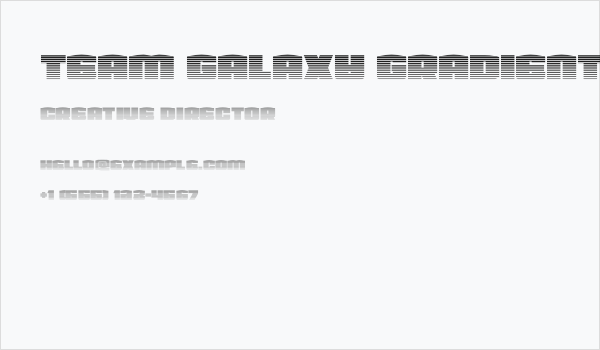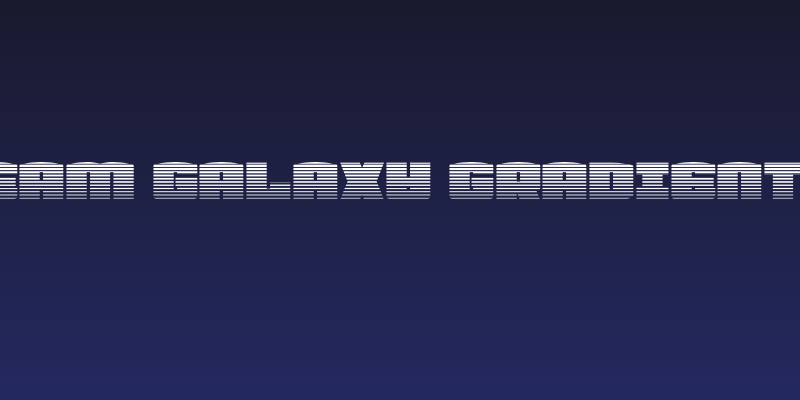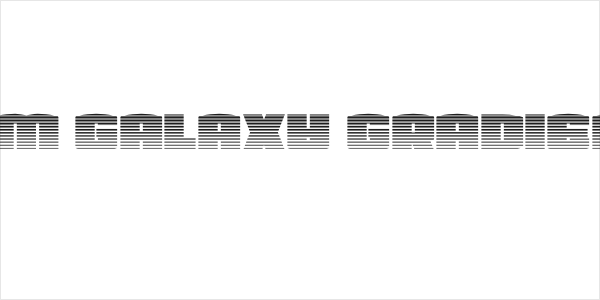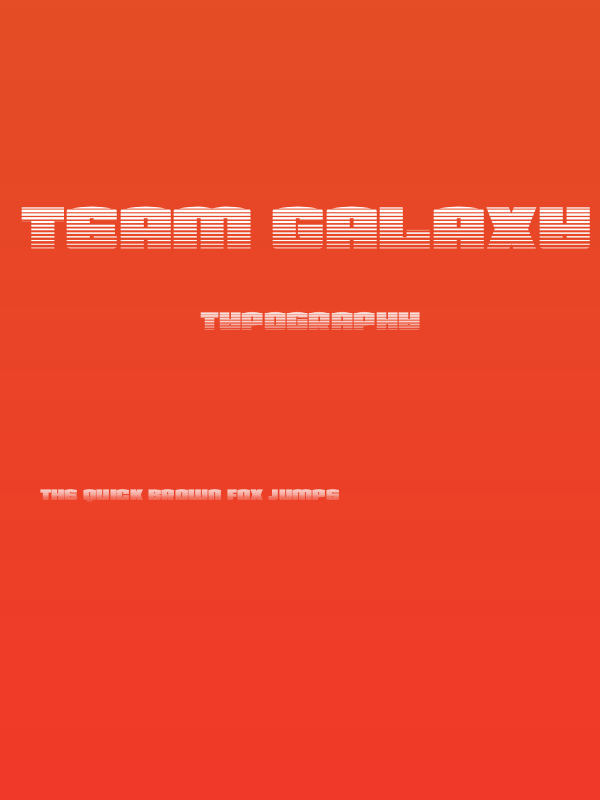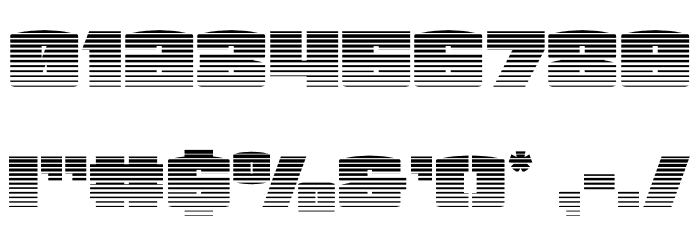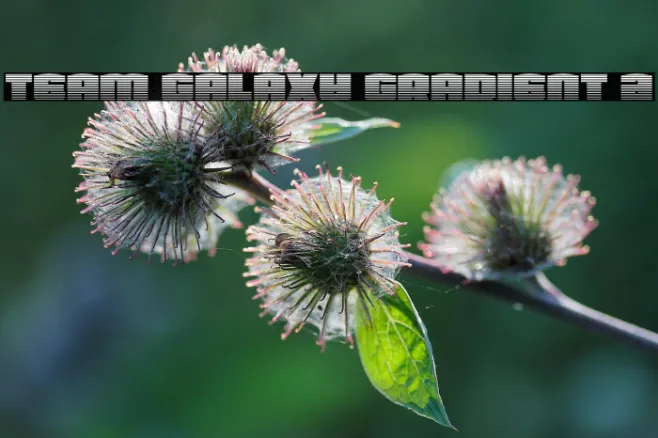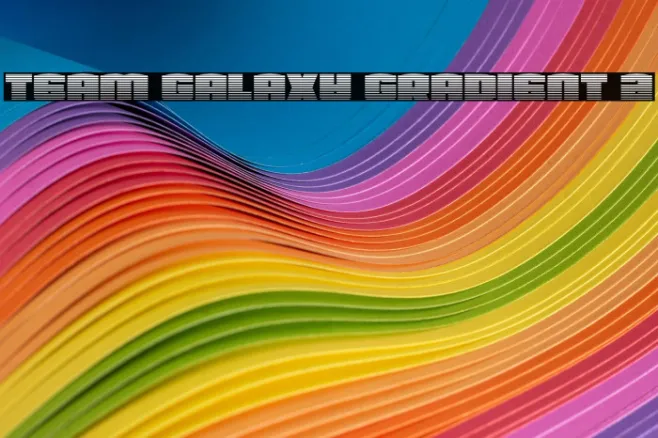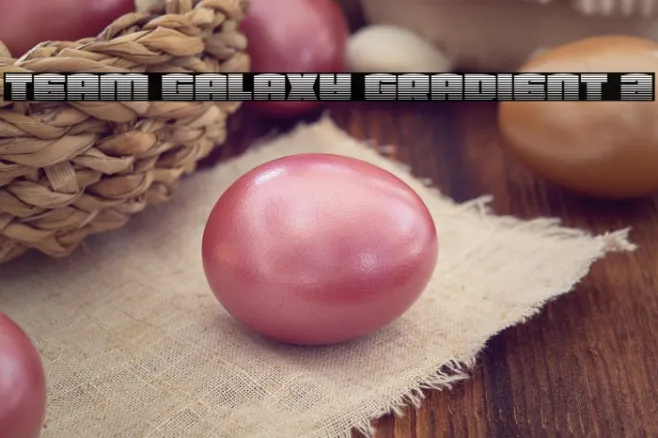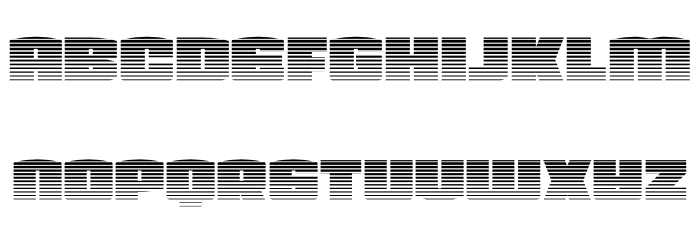
Team Galaxy Gradient 2 Font
Team Galaxy Gradient 2 Description
This font features a unique, futuristic design with a series of horizontal lines creating a gradient effect within each character. The uppercase and lowercase letters, as well as numbers and special characters, maintain a consistent style that emphasizes a bold, modern aesthetic. The lines within each character give a sense of movement and depth, making it ideal for eye-catching designs. The font's structure is geometric and precise, with each character having a uniform width and height, contributing to its clean and organized appearance. The overall look is both innovative and stylish, suitable for projects that require a contemporary and dynamic feel.
| Proposed Projects | Ideal for sci-fi themed projects, technology branding, modern posters, and digital media. |